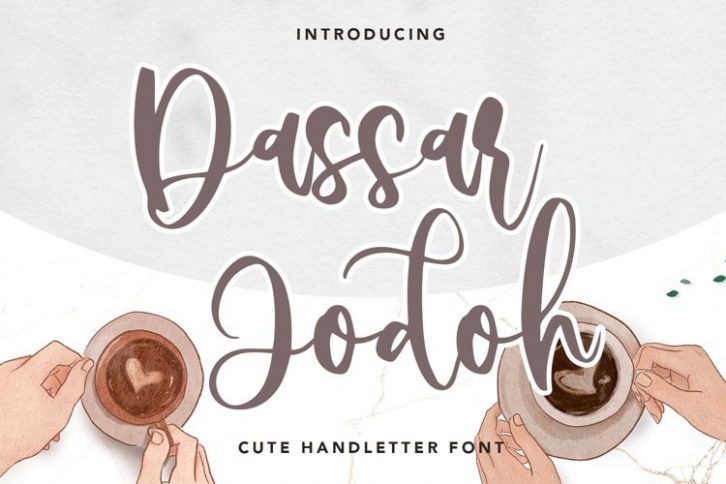
Dassar Jodoh is a trendy and unique font with an authentic style. It was designed by plusstore and it's a great choice for creative people who need such a font. It was released on July 31, 2021 and the file size is 9.52 MB. Dassar Jodoh will add an organic vibe to any design idea!